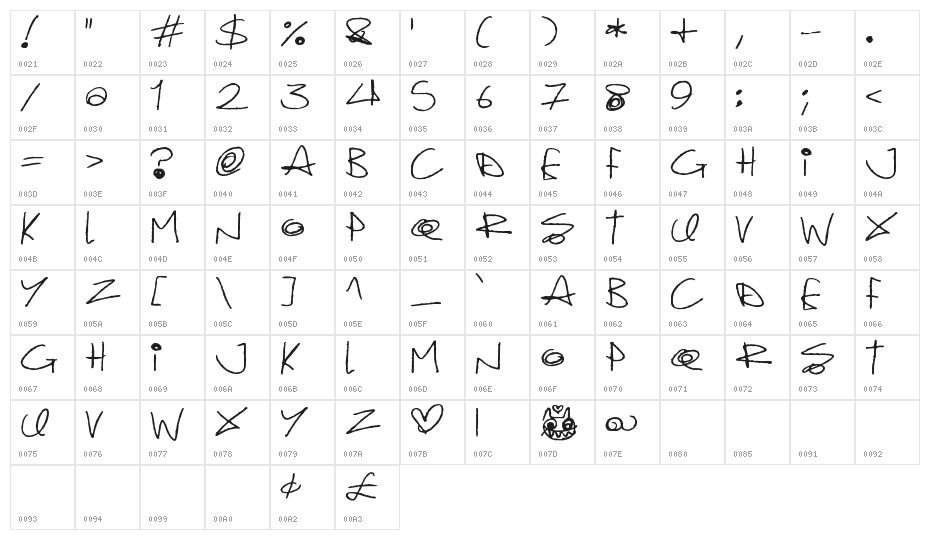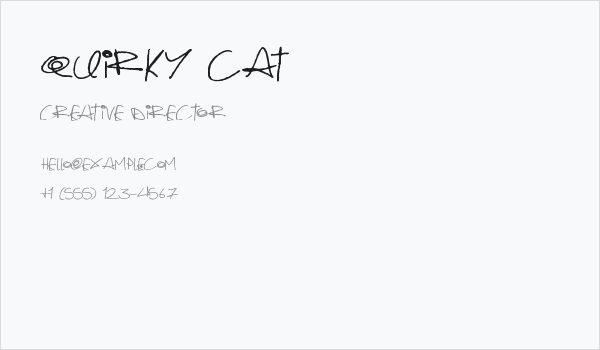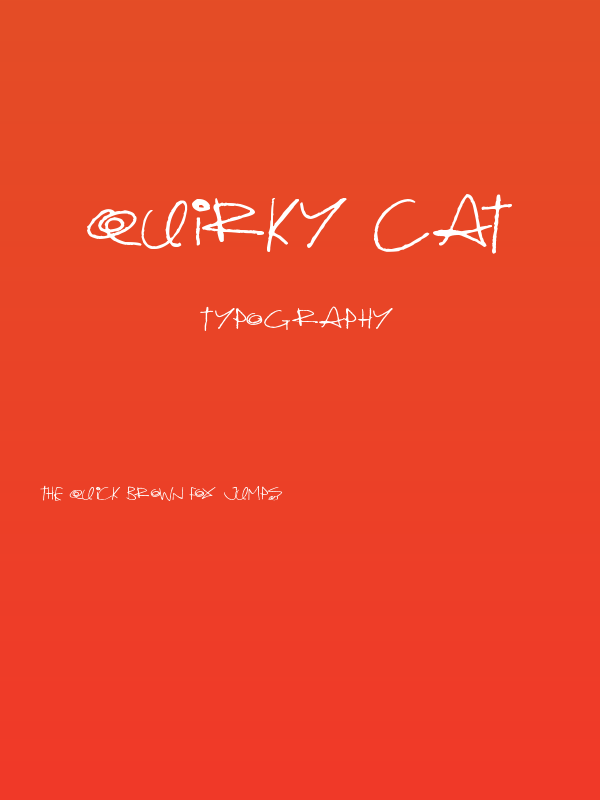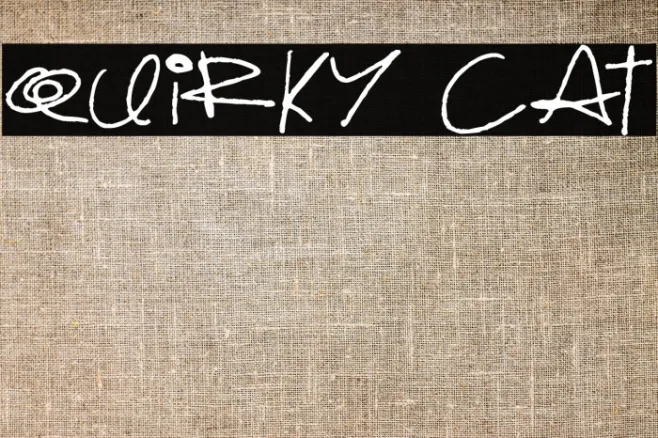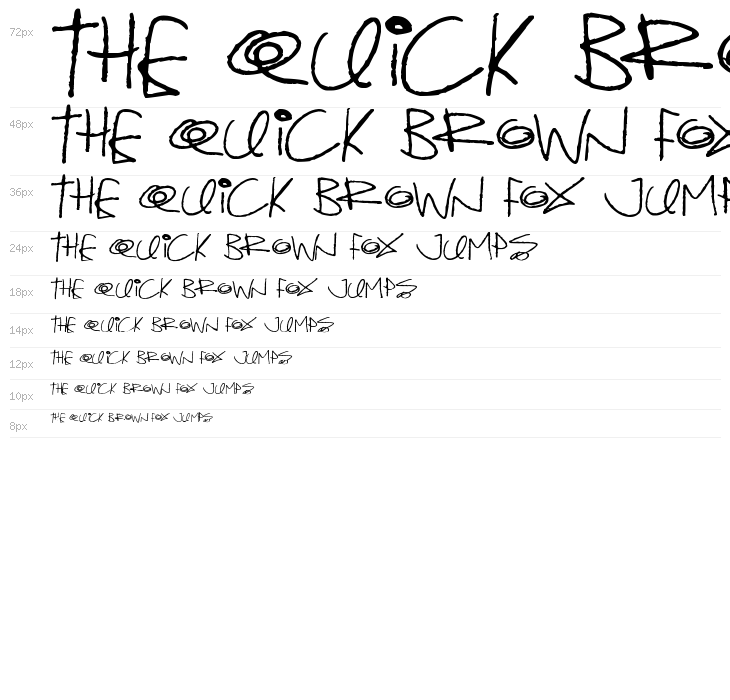
Quirky Cat Font
Quirky Cat Description
This font exudes a playful and whimsical character, with its hand-drawn, sketch-like appearance. The letters are irregular and feature a mix of thick and thin strokes, giving it a dynamic and energetic feel. The uppercase and lowercase letters maintain a consistent style, with quirky loops and unexpected angles that add to its charm. Numbers and special characters follow the same lively design, making the font versatile for creative projects. Its unique style is reminiscent of doodles or graffiti, making it stand out in any design context.
| Proposed Projects | Ideal for children's books, playful branding, creative posters, and artistic invitations. |